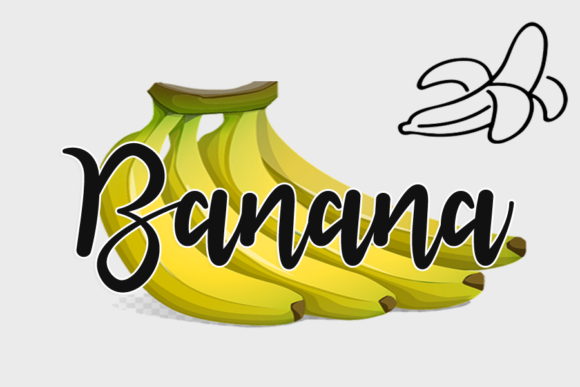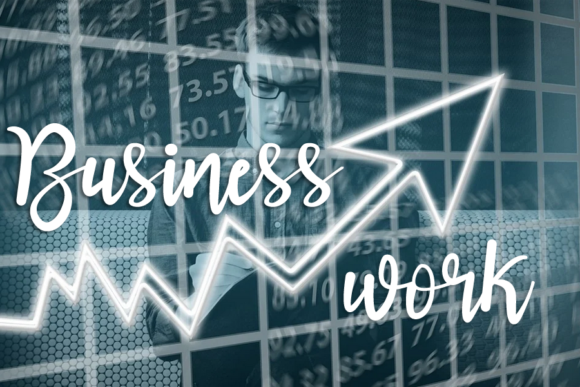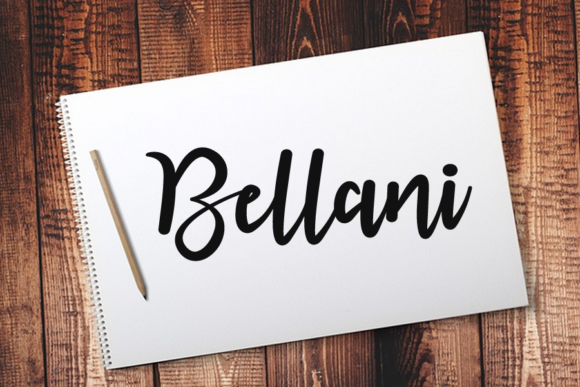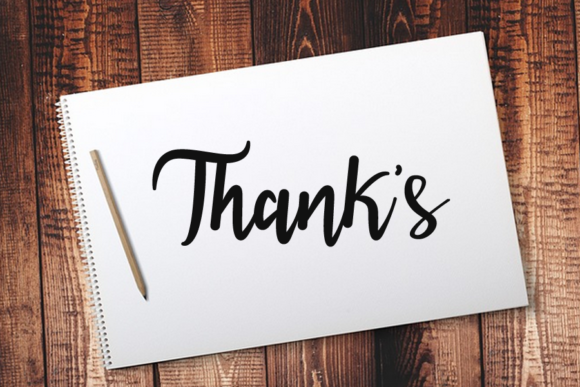
Stickers Font
About Stickers Font
Stickers is a lovely and delicate script font designed to exude elegance and class, adding a beautiful and refreshing touch to your designs. Crafted with meticulous attention, this font is ideal for those seeking a sophisticated aesthetic that enhances the overall visual appeal of their projects.
The font’s graceful script and delicate details make it a standout choice for a variety of design applications. Whether you’re working on invitations, cards, branding, or any creative project that demands a touch of refinement, Stickers offers a charming and sophisticated solution.
One notable feature is the font’s PUA encoding, allowing for easy access to a wide array of amazing glyphs and ligatures. This feature enhances the font’s versatility, enabling designers to effortlessly incorporate unique characters and decorative elements into their designs. The flexibility provided by the PUA encoding ensures a seamless creative process.
Stickers is particularly well-suited for projects where an elegant and classy appearance is desired. From sophisticated invitations to high-end branding, the font’s lovely and delicate script brings a sense of sophistication and style.
In summary, Stickers goes beyond being just a font; it’s a design asset that brings a lovely and delicate touch to your projects. With its elegance, class, and PUA encoding for enhanced creativity, this font is a valuable choice for those seeking a script font that effortlessly elevates the visual appeal of their work.